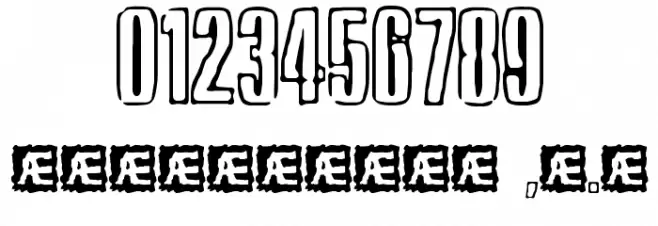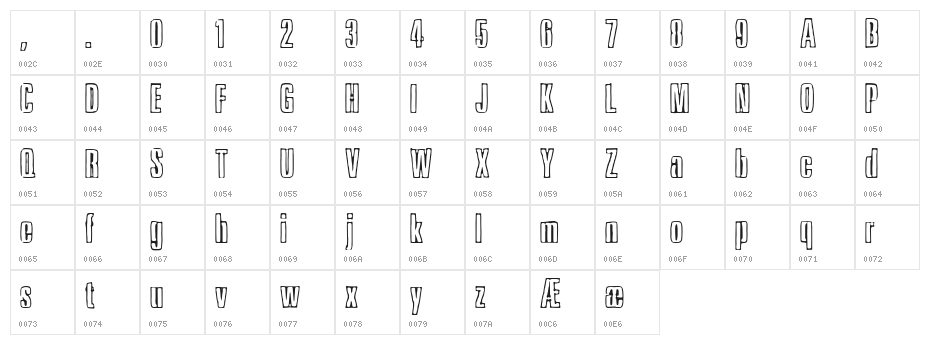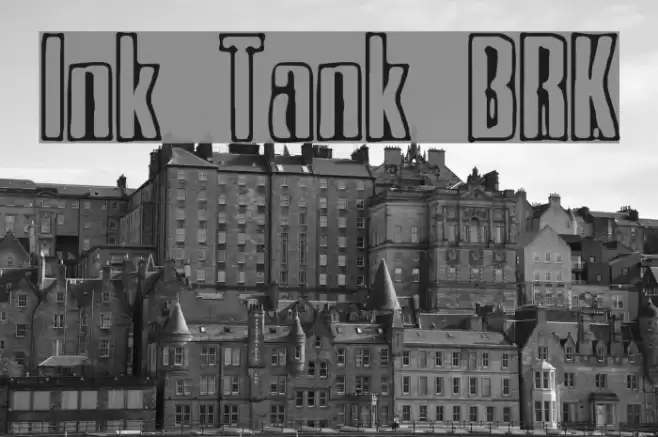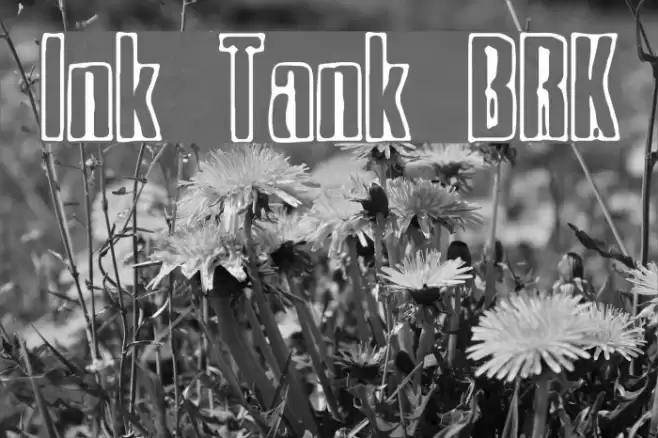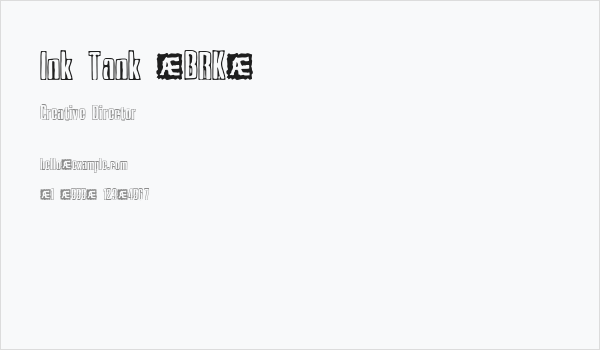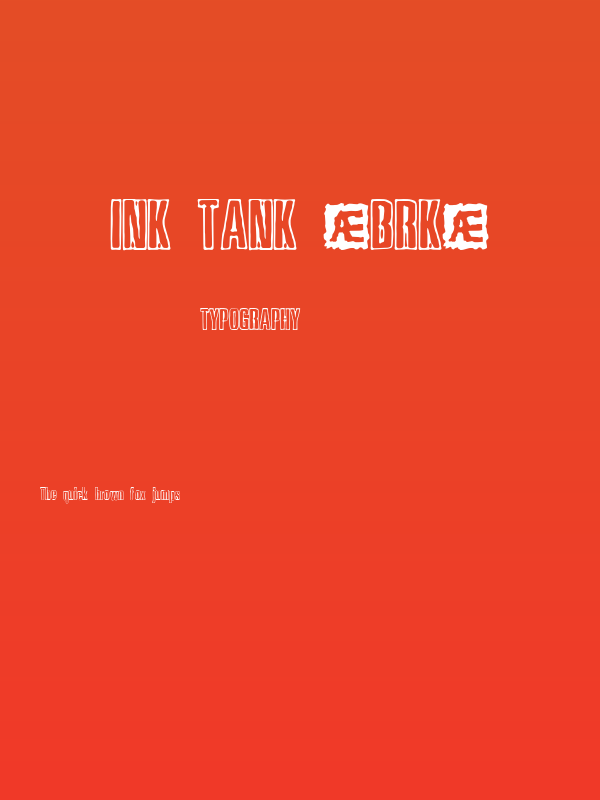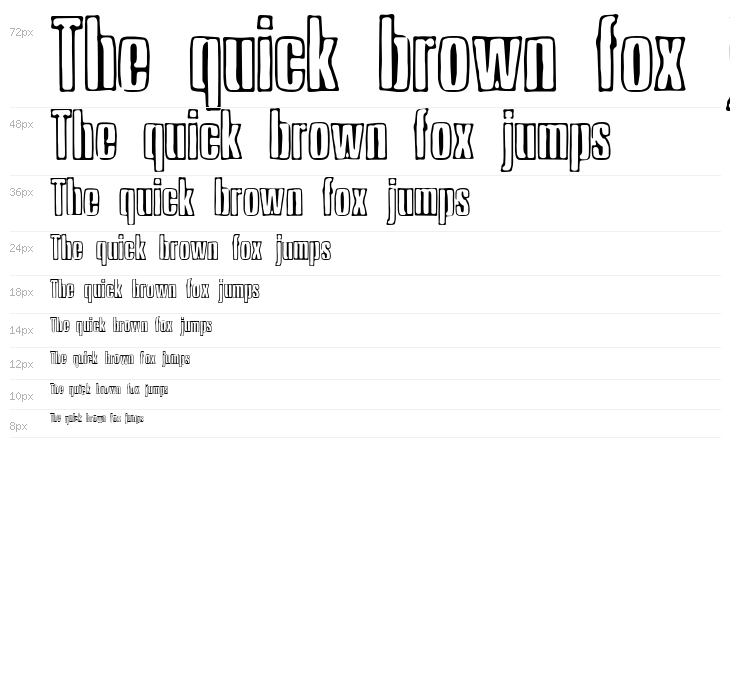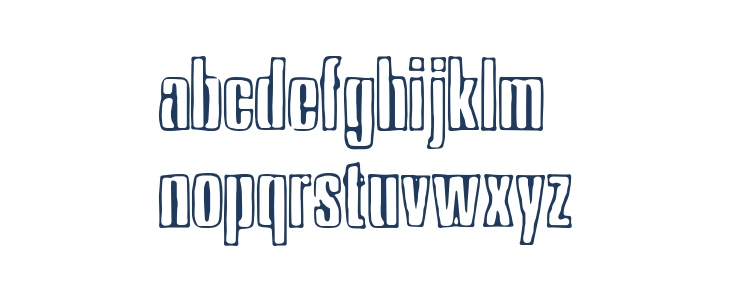
Ink Tank [BRK] Font
Ink Tank [BRK] Description
This font features a bold, decorative style with a unique ink-like texture that gives it a hand-drawn appearance. The uppercase and lowercase letters maintain a consistent width, while the numbers and special characters follow the same artistic theme. The font's design includes a playful yet structured form, making it stand out with its distinctive outlines and filled-in sections. The characters are evenly spaced, ensuring readability despite the intricate design. This font is ideal for creative projects that require a touch of whimsy and artistic flair.
| Proposed Projects | Ideal for posters, album covers, creative branding, and artistic projects. |